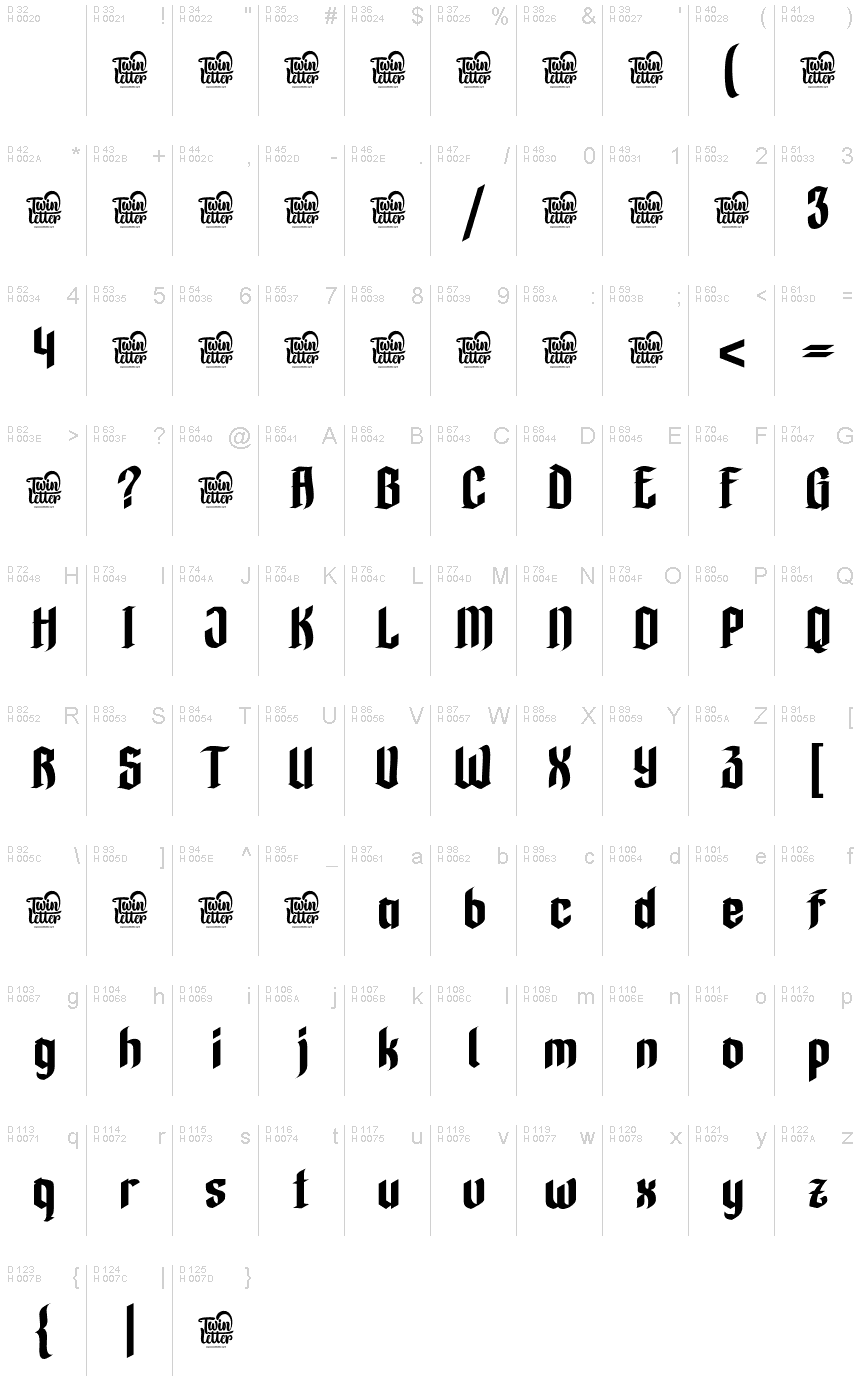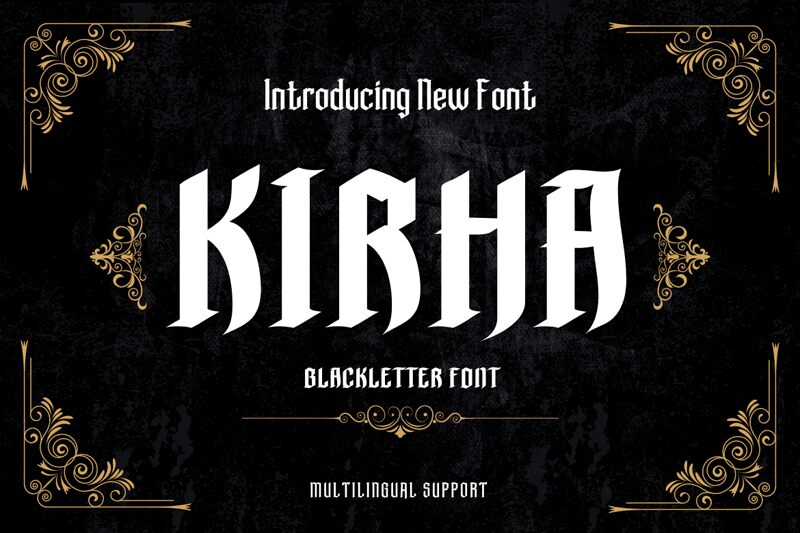
KIRHA-Regular
The Kirha font by twinletter is a modern semi-bold gothic blackletter typeface with a condensed width. Its unique design combines traditional blackletter elements with a contemporary twist, making it suitable for a range of creative projects.
With its bold and striking appearance, Kirha is perfect for branding and logo designs that aim to convey strength and sophistication. Its condensed width also makes it ideal for headlines in editorial layouts or poster designs, adding an edgy yet refined touch. Additionally, this font can lend an air of mystery and elegance to book covers or album artwork, capturing the attention of those seeking a distinctive aesthetic.